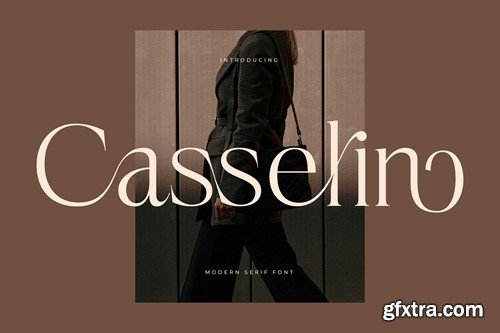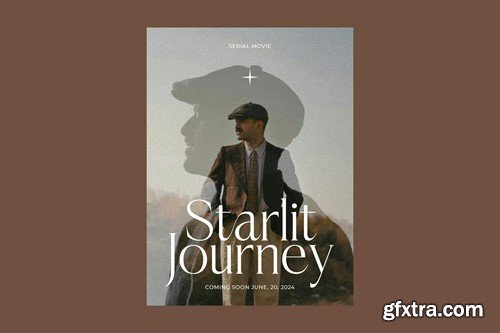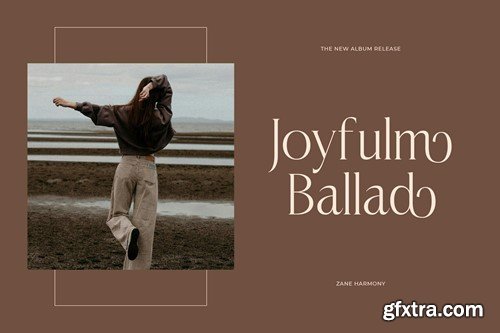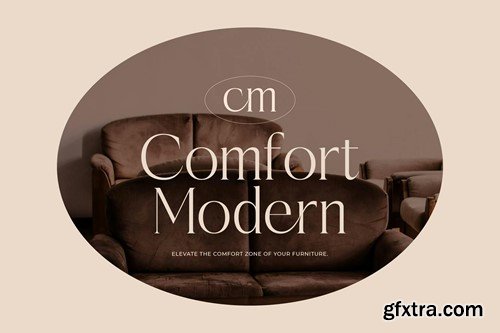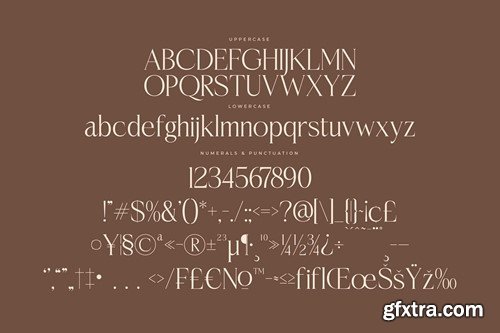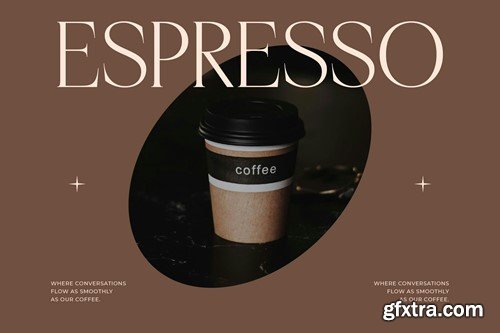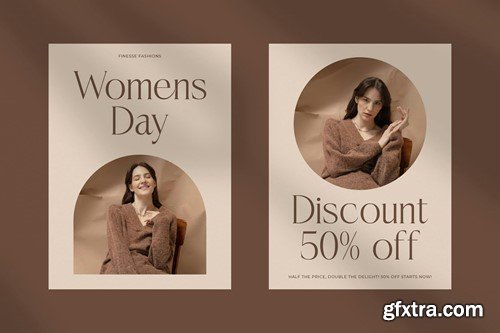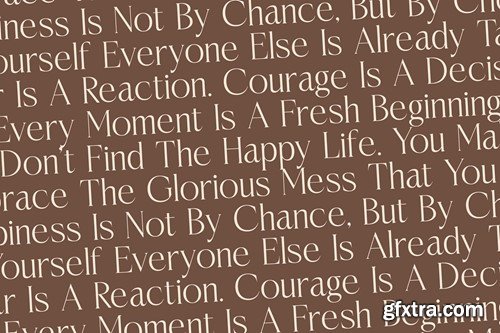
Casselin Modern Serif Font
Hi ladies & gentlemen, this is one of our fonts suitable to complement your digital and printed creative products. This font is perfect for posters, social media posts, branding, personal projects, etc.